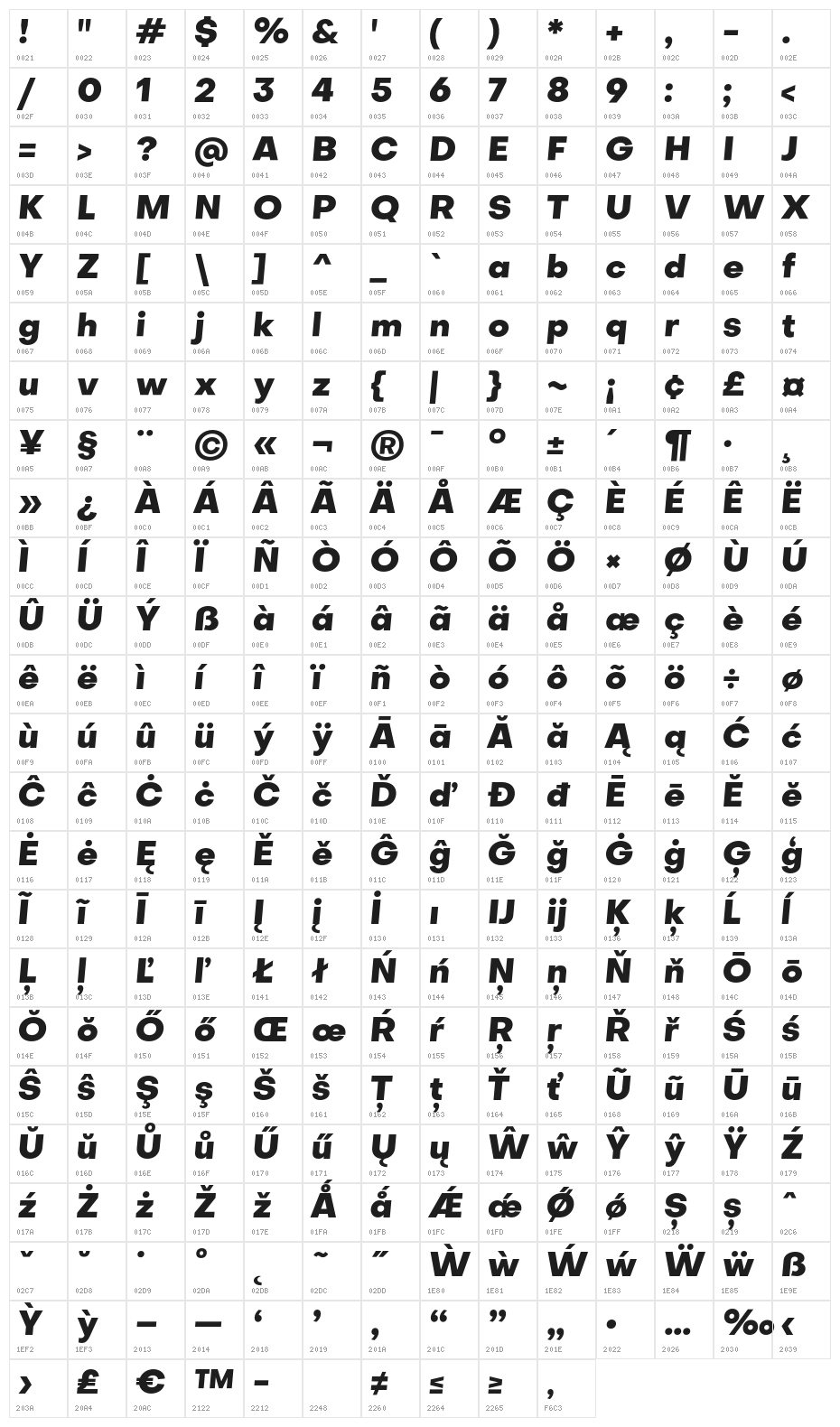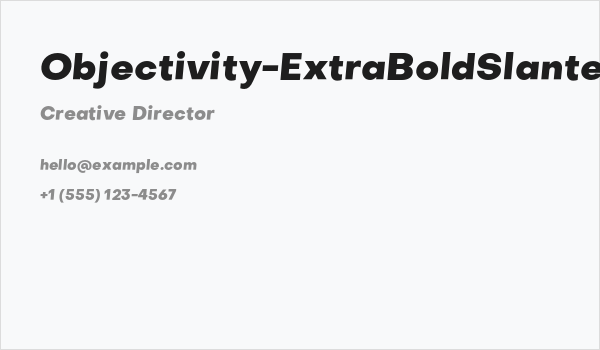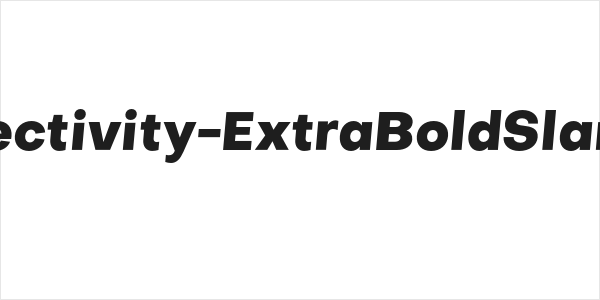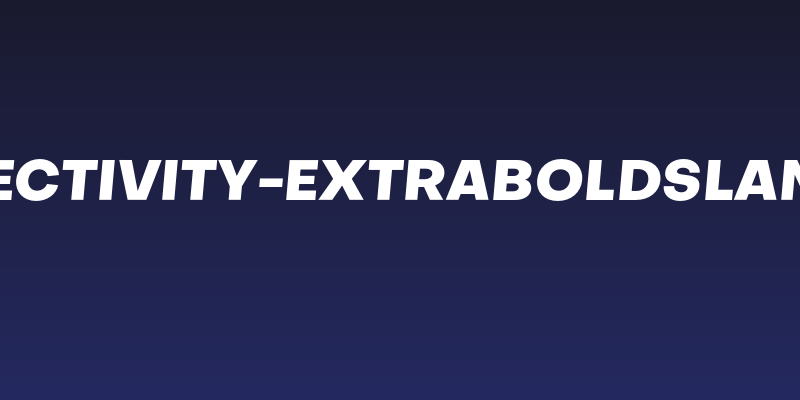
Objectivity-ExtraBoldSlanted Font
Objectivity-ExtraBoldSlanted Description
This font exhibits a bold and assertive style with a slanted orientation, giving it a dynamic and modern appearance. The characters are uniformly thick, contributing to a strong visual impact. The uppercase and lowercase letters maintain a consistent weight, ensuring readability and balance. The numerals and special characters are designed with the same boldness, making them stand out effectively. The overall design is clean and straightforward, with no unnecessary embellishments, emphasizing clarity and strength.
| Proposed Projects | Ideal for branding, advertising, headlines, and any project requiring a strong visual presence. |